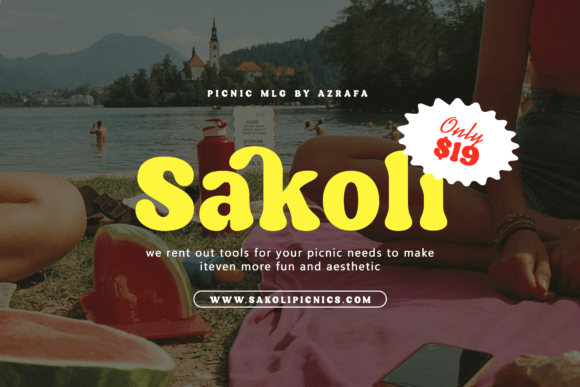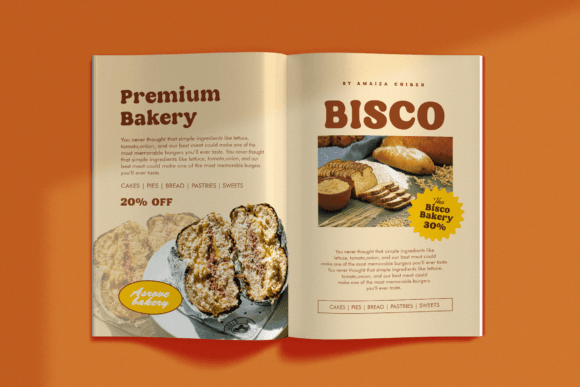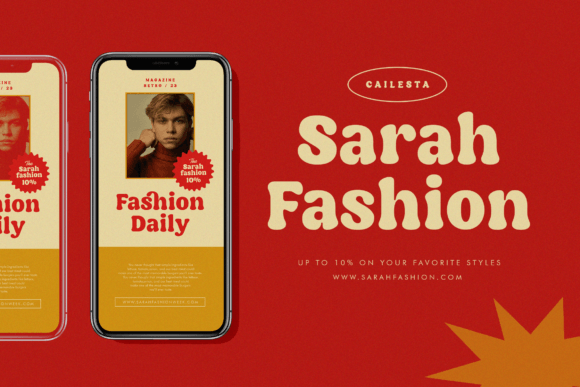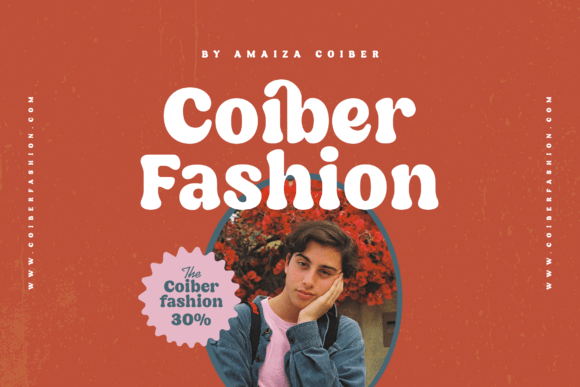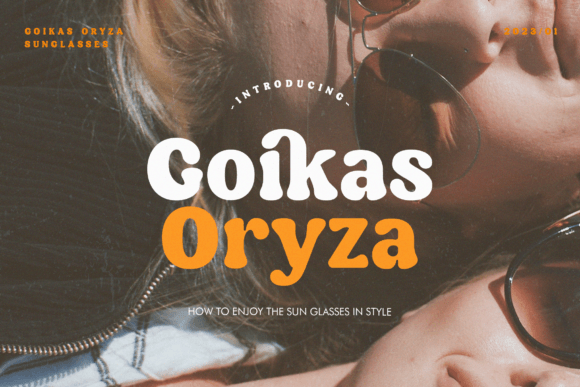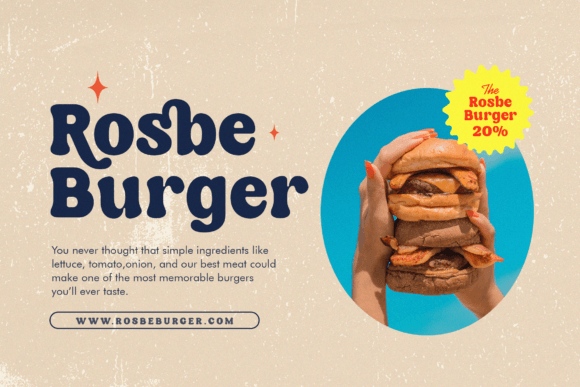
Cailesta Font: The Ultimate Classic Retro Display Serif for Your Design Needs
Are you a designer or crafter looking for a font that exudes a sense of nostalgia and playfulness? Look no further than Cailesta, a lovely bold serif font that’s perfect for a wide range of design applications. In this article, we’ll dive into the world of Cailesta and explore its features, uses, and benefits.
What is Cailesta Font?
Cailesta is a classic retro display serif font that’s designed to bring a touch of vintage charm to your designs. Its bold and chubby letters are reminiscent of a bygone era, evoking feelings of nostalgia and warmth. The font’s unique character makes it perfect for designs that require a statement piece, such as logos, branding, and advertising materials.
Key Features of Cailesta Font
- Bold and Chubby Letters: Cailesta’s letters are bold and chunky, making them perfect for headlines, titles, and emphasis.
- Serif Details: The font features classic serif details that add a touch of sophistication and elegance to your designs.
- Retro Vibe: Cailesta’s vintage-inspired design makes it perfect for retro-themed designs, such as summer posters, vintage garage designs, and hardcore music branding.
- Versatility: The font is suitable for a wide range of design applications, including logos, branding, advertising, editorial design, and more.
Design Applications for Cailesta Font
Cailesta is an incredibly versatile font that can be used in a variety of design applications. Here are some ideas to get you started:
- Logo Design: Cailesta’s bold and chunky letters make it perfect for logos that require a statement piece.
- Branding: Use Cailesta to create a cohesive brand identity that exudes a sense of nostalgia and playfulness.
- Advertising Design: The font’s retro vibe makes it perfect for vintage-themed advertising materials, such as posters, flyers, and brochures.
- Vintage Garage Design: Cailesta’s bold and serif details make it perfect for vintage garage designs, such as t-shirts, stickers, and signage.
- Adventure/Mountain Hiking Brand: The font’s bold and adventurous feel makes it perfect for outdoor brands that require a strong and statement-making identity.
- Hardcore Music: Cailesta’s bold and edgy design makes it perfect for hardcore music branding, such as album covers, posters, and merchandise.
- Animation or Movie: The font’s unique character makes it perfect for animation or movie titles, intros, and outros.
- Retro Summer Poster Quote: Use Cailesta to create eye-catching summer poster quotes that evoke a sense of nostalgia and fun.
- Book/Novel Cover Title: The font’s serif details and bold letters make it perfect for book or novel cover titles that require a touch of elegance and sophistication.
- Editorial Design: Cailesta can be used in editorial design, such as magazine headers, article titles, and captions.
- Website/Blog: The font can be used as a display font for website or blog headers, titles, and emphasis.
- Card Design: Cailesta can be used for card design, such as greeting cards, postcards, and business cards.
Benefits of Using Cailesta Font
So, why should you choose Cailesta for your design needs? Here are some benefits of using this amazing font:
- Unique Character: Cailesta has a unique character that sets it apart from other fonts.
- Versatility: The font is suitable for a wide range of design applications.
- High-Quality Design: The font is designed with high-quality and precision, ensuring that it looks great in any design application.
Cailesta is an amazing font that’s perfect for designers and crafters who require a classic retro display serif font for their design needs. Its bold and chubby letters, serif details, and retro vibe make it suitable for a wide range of design applications. Whether you’re creating a logo, branding materials, or advertising design, Cailesta is the perfect choice. So, download Cailesta today and add a touch of nostalgia and playfulness to your designs!